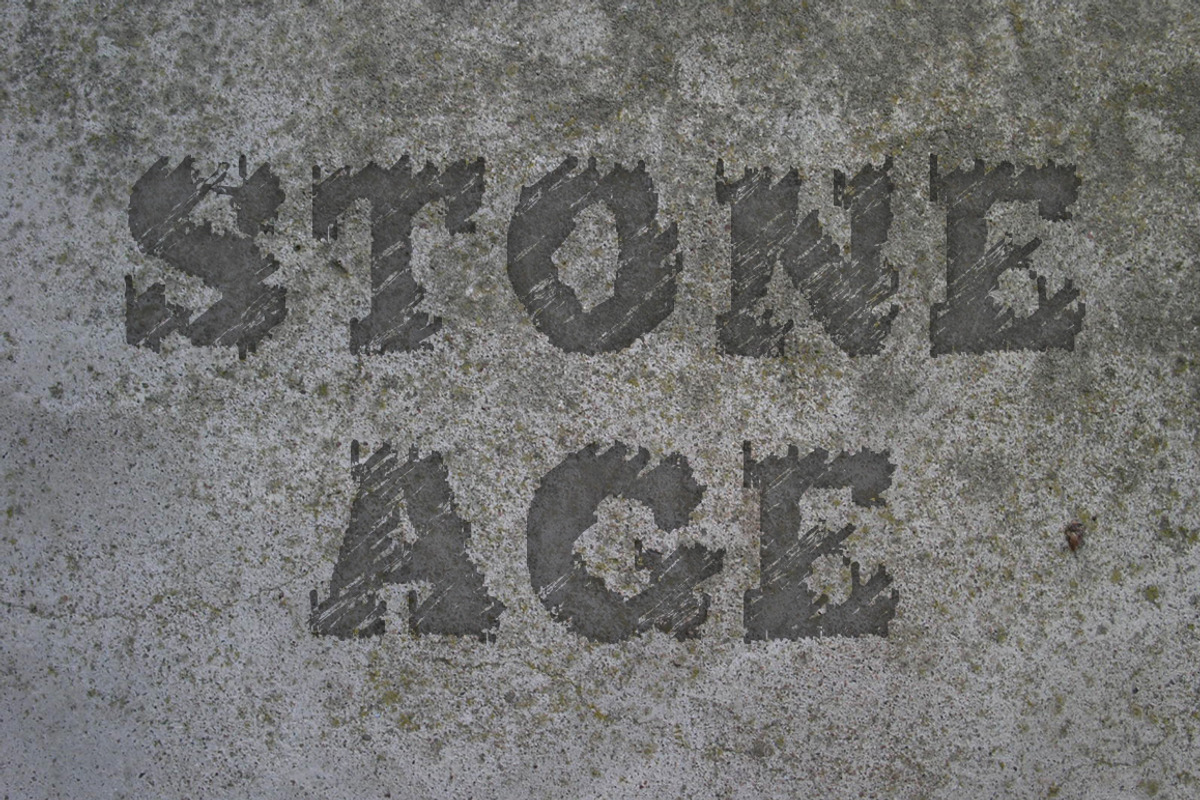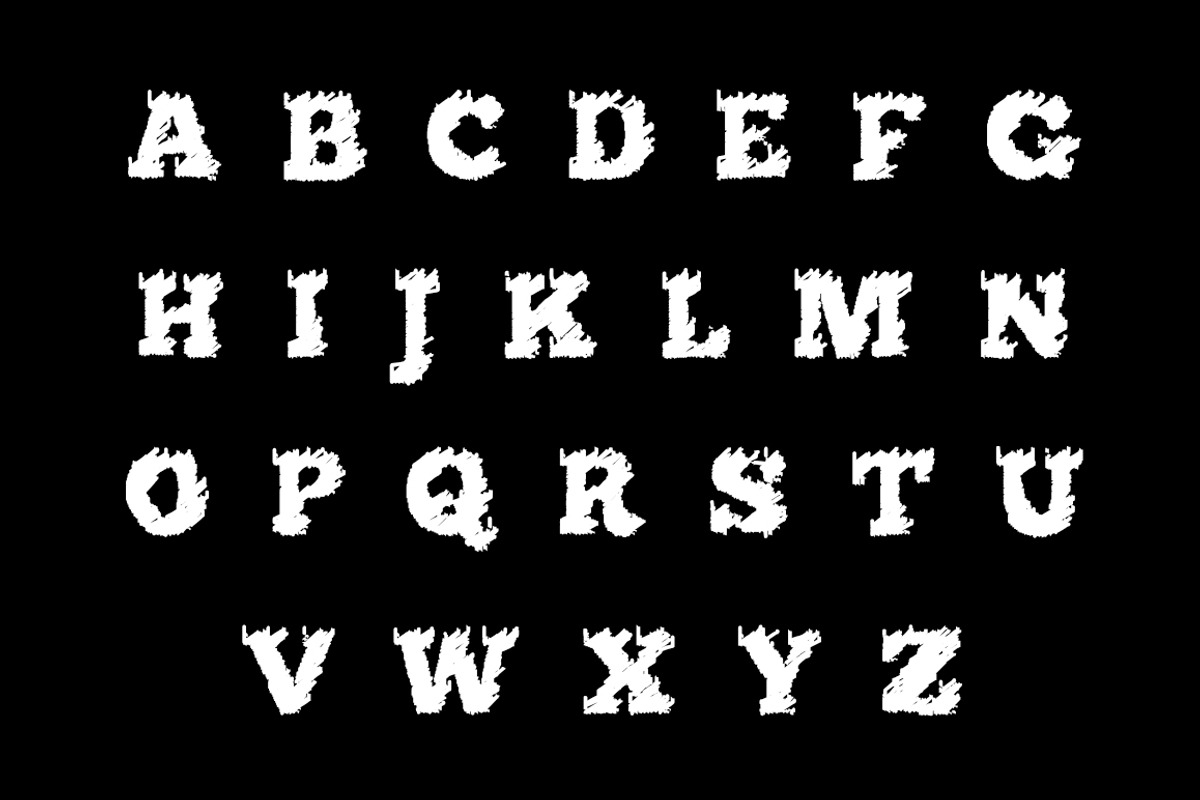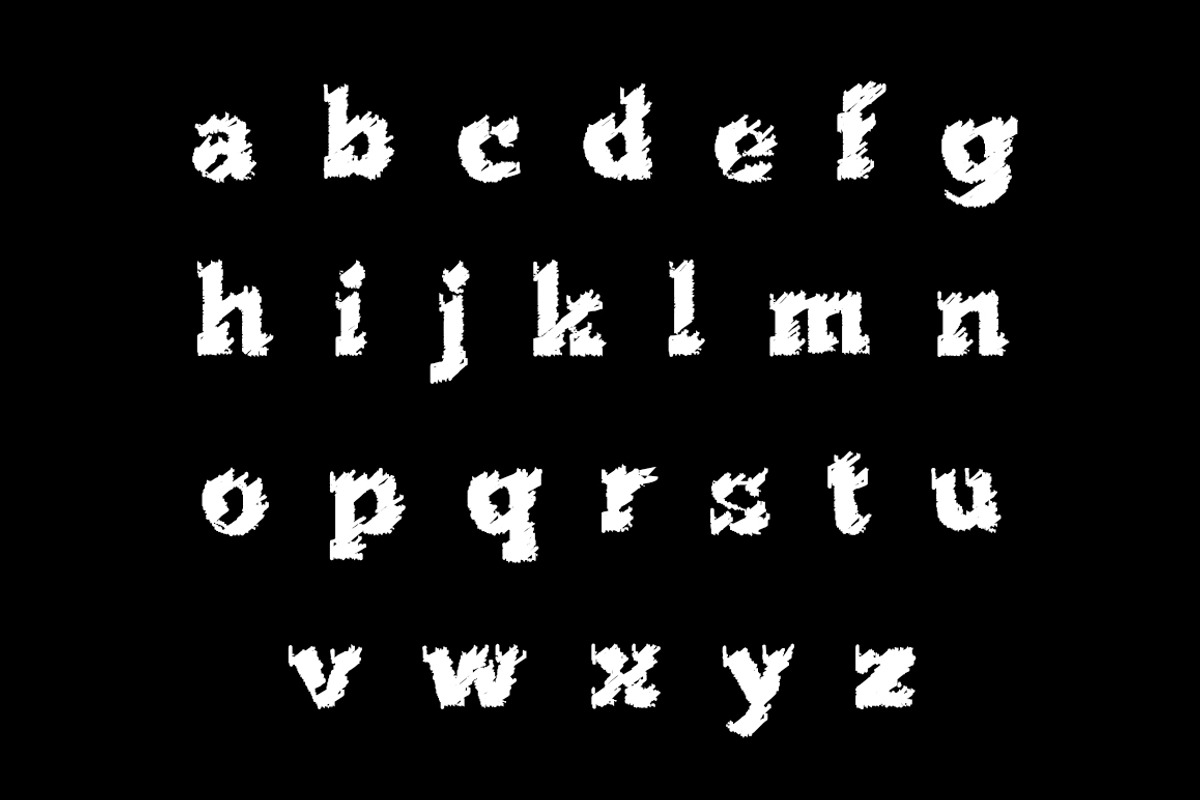
Flared Font
Flared Font by Tosca Digital is a font selected for branding, posters, packaging, typography.
Why Flared Font is worth a look
Flared Font by Tosca Digital fits naturally into Branding, posters, packaging, typography.